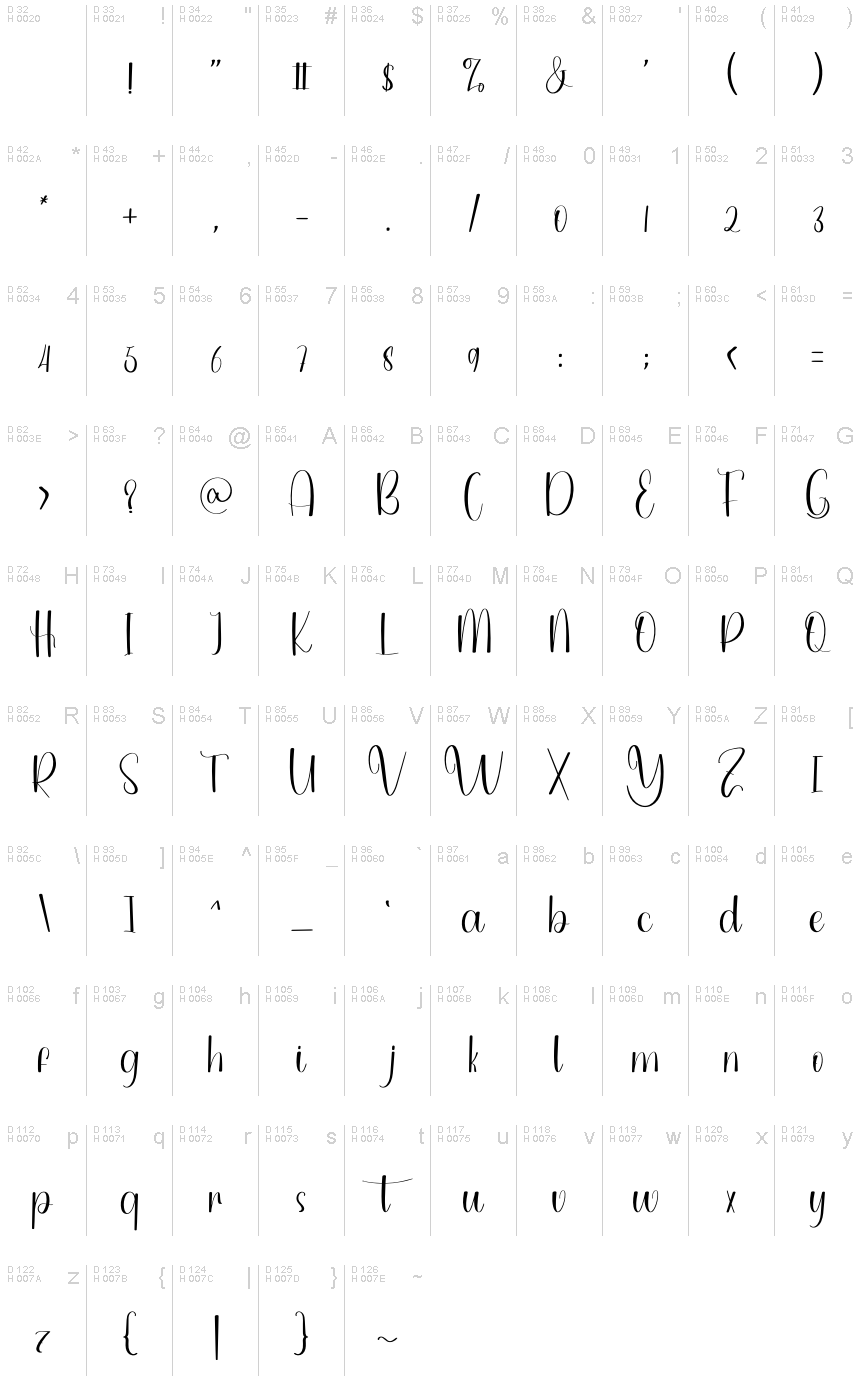
Beautiful Vintage
Beautiful Vintage, designed by PiPi Creative, is a calligraphy font that exudes elegance and a timeless charm. With its semi-light weight, it weaves sophistication into every curve and swash, making it an ideal choice for projects that require a touch of finesse. Its flowing letters and delicate form lend themselves to wedding invitations, branding materials, and personalized stationery.
The aesthetic appeal of Beautiful Vintage lies in its balance between readability and artistic flair. Each character is crafted with attention to detail, ensuring that while the font carries an artistic quality, it remains legible and functional for various applications. Whether you're looking to add a romantic note to your designs or create something with an air of antiquity, Beautiful Vintage offers versatility without compromising on style or grace.